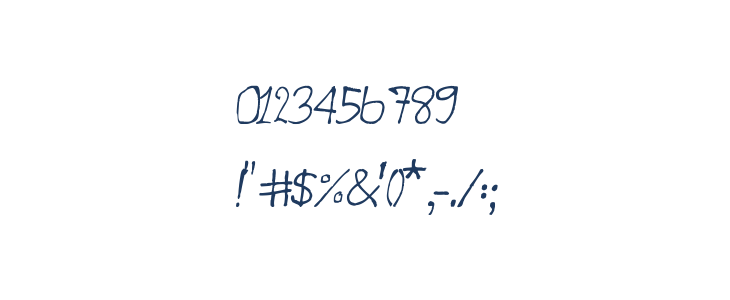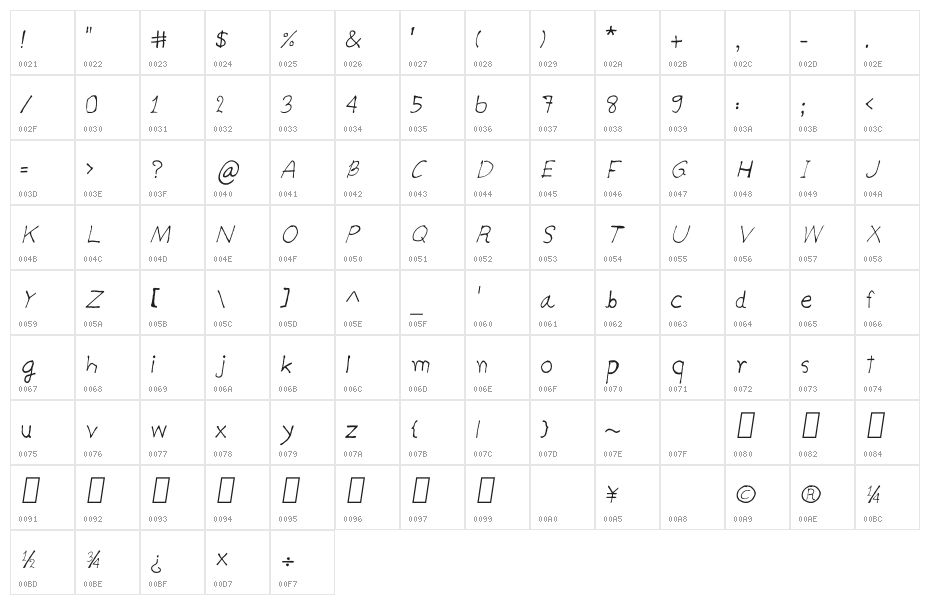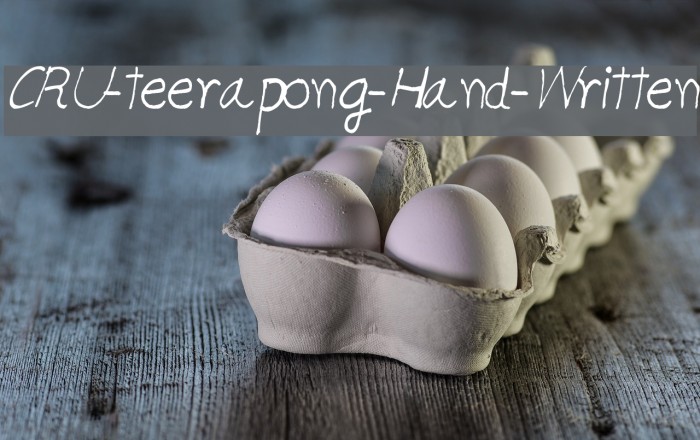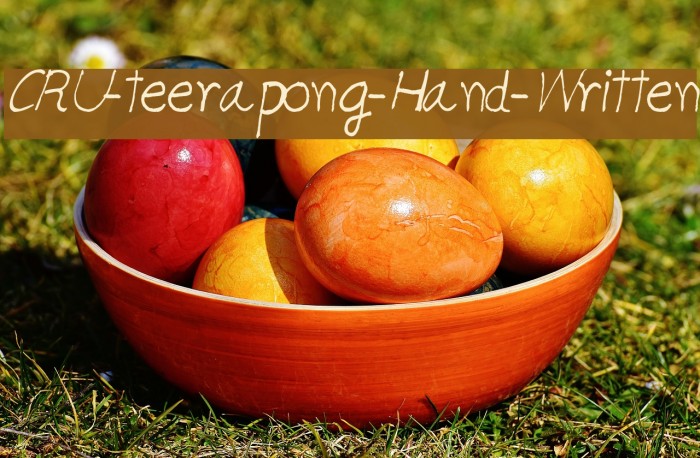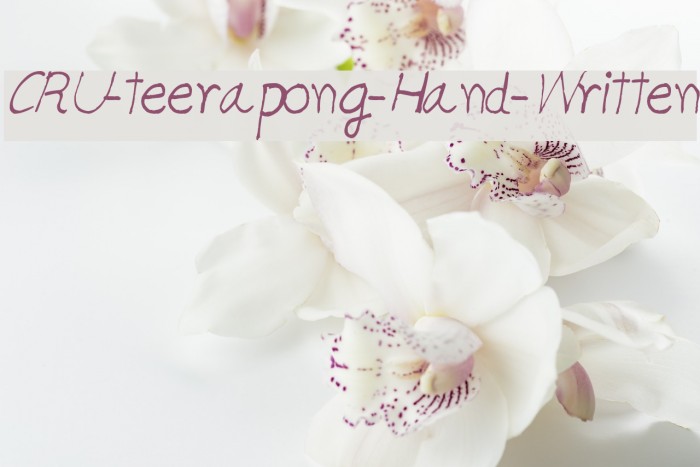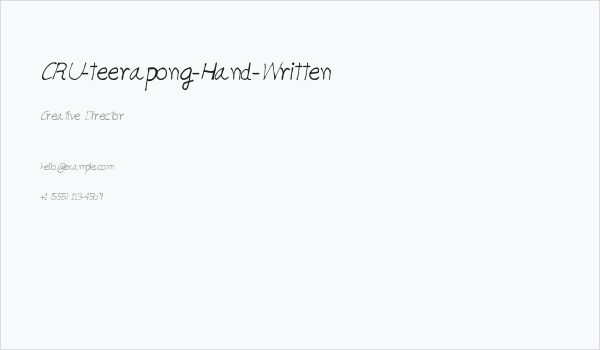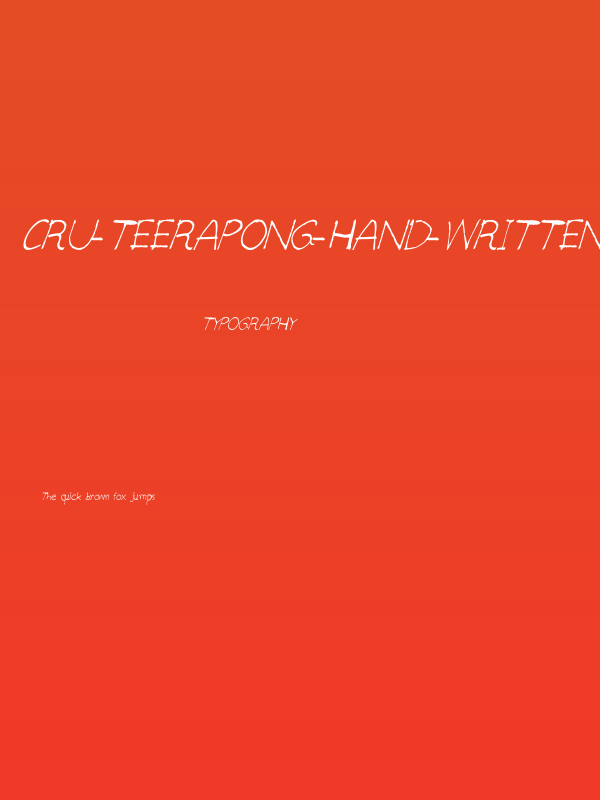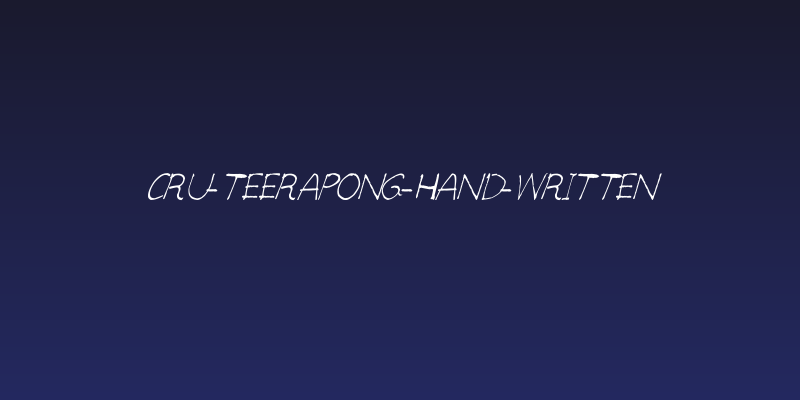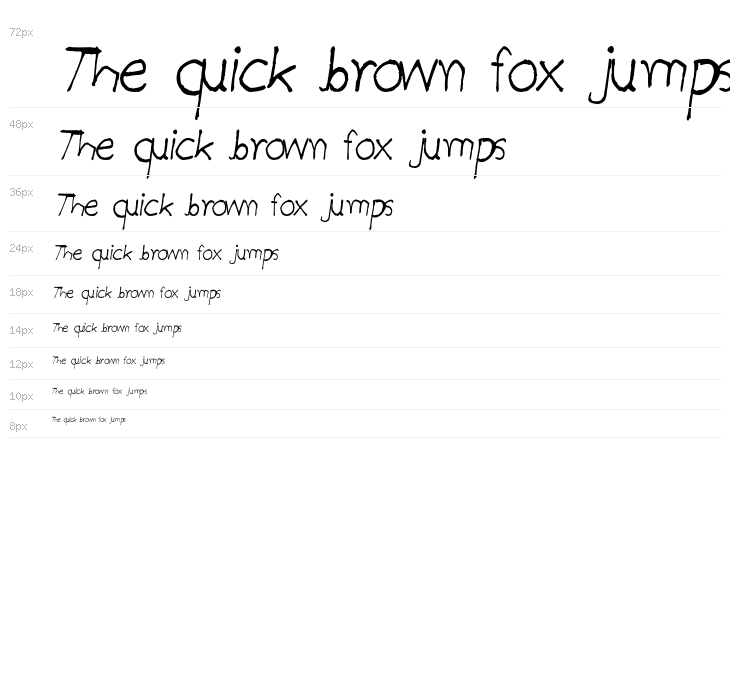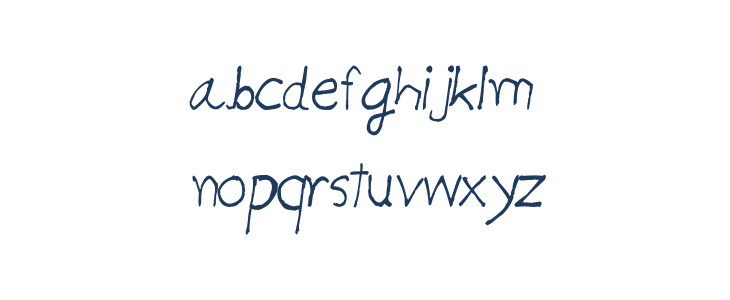
CRU-teerapong-Hand-Written Font
CRU-teerapong-Hand-Written Description
This font exhibits a casual, hand-drawn style that mimics natural handwriting. The letters are slightly irregular, with varying stroke thickness that adds a personal touch. The uppercase letters are bold and slightly slanted, while the lowercase letters maintain a consistent flow with a playful character. Numbers and special characters follow the same handwritten aesthetic, making the font versatile for creative projects. The overall appearance is informal and approachable, suitable for designs that require a personal or artistic flair.
Overall StyleCasual, Artistic
Use CaseLogos, Greeting Cards, Posters
Proposed ProjectsIdeal for greeting cards, personal notes, creative posters, and informal branding projects.